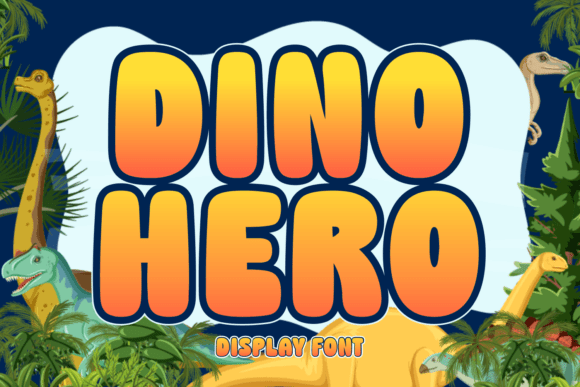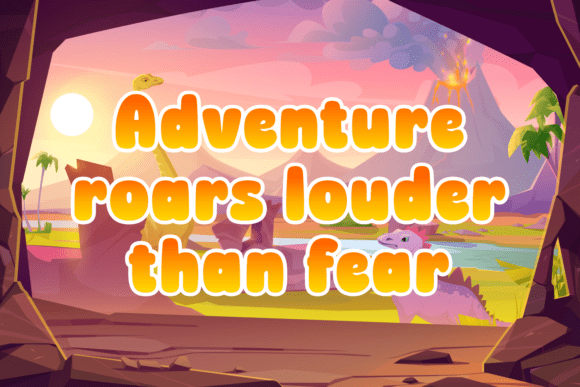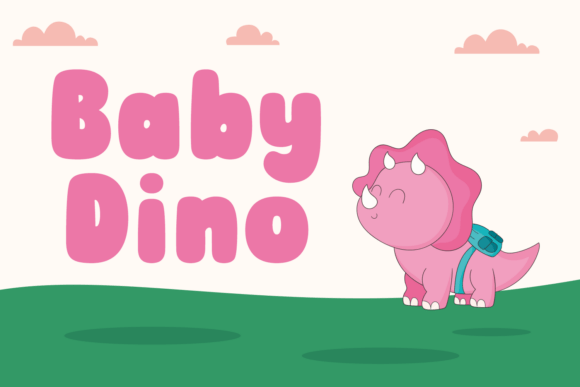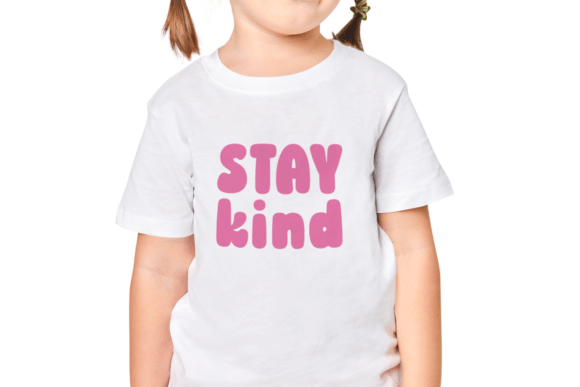
The Power of Typography: Bringing Imagination to Life
Who among us hasn’t been captivated by the magic of a well-crafted font? Perhaps you’re a parent, scrolling through your child’s latest school project, or a teacher, pouring over a student’s creative assignment. Whatever the context, the impact of a beautifully designed font can be profound. It’s in these moments that we realize the importance of typography in shaping our experiences and emotions.
Enter the Dino Hero Font, a delightful and versatile addition to any designer’s toolkit. This charming font is specifically crafted to captivate the younger audience, while also serving as a remarkable addition for school, educational, or teacher-orientated projects. With its unique and clean execution, the Dino Hero Font remains authentic, embracing multilingualism through its 7nTypes accented styles.
Dino Hero Font Key Features
- Unique Characteristics: The Dino Hero Font features a bold, playful design with a mix of modern and vintage elements, making it perfect for use in children’s books, educational materials, and other applications where a fun and engaging font is desired.
Dino Hero Font Review
I recently had the chance to work with the Dino Hero Font, and I’m here to share my honest thoughts on its strengths and weaknesses.
- The font’s playful, energetic vibe is perfect for kids’ content, educational materials, or any project that needs a fun, adventurous feel.
- The font’s bold lines and rounded edges create a cohesive, whimsical style that’s engaging and easy to read.
- The font family includes a range of weights and styles, making it easy to find the perfect fit for your project.
- The font may be too bold or overwhelming for some designs, particularly those that require a more subtle or professional look.
- The font’s playful style may not be suitable for all audiences, such as formal or technical content.
- The font’s limited language support may be a concern for multilingual projects.
Overall, I think the Dino Hero Font is a great choice for projects that need a fun, adventurous feel. However, it’s essential to consider the limitations and choose it wisely.
Getting the Most Out of Dino Hero Font
Use the Dino Hero font to create bold, playful headlines and titles. Combine with complementary fonts for a unique visual effect. Experiment with different font sizes, colors, and styles to add depth and interest.
The Dino Hero font is perfect for: children’s book illustrations, educational materials, and advertising campaigns targeting a young audience. Use it to create eye-catching headings, titles, and logos that stand out and grab attention.